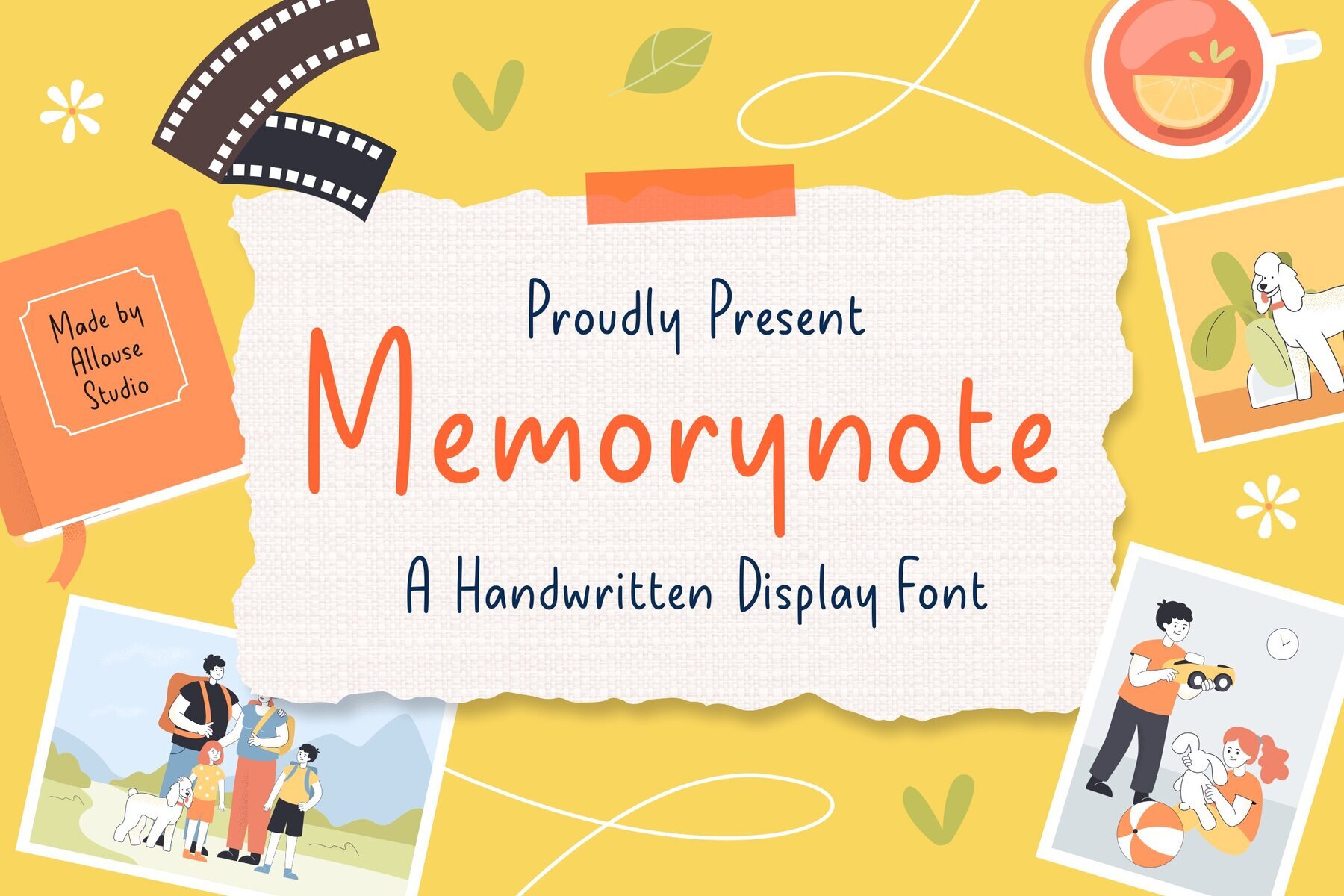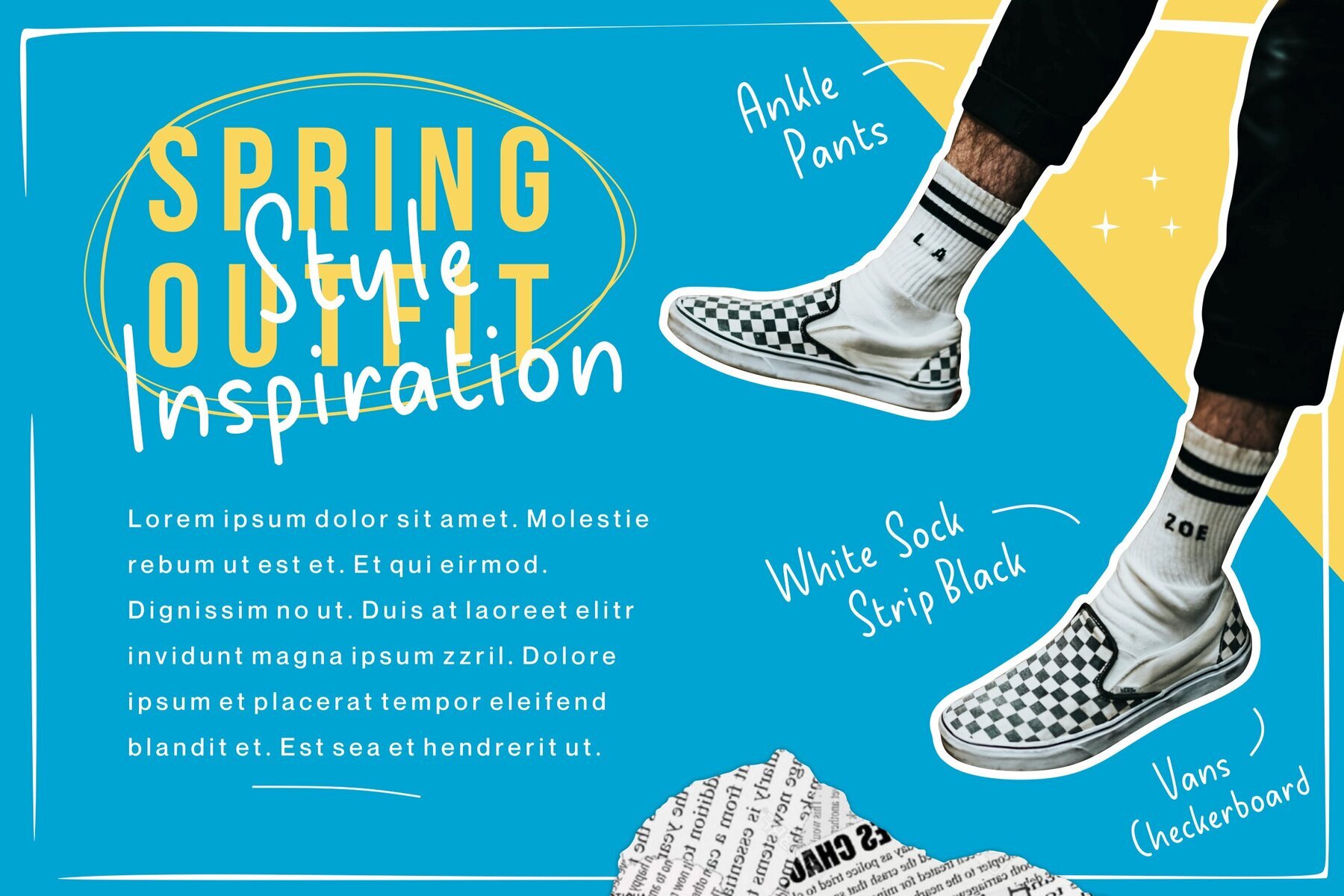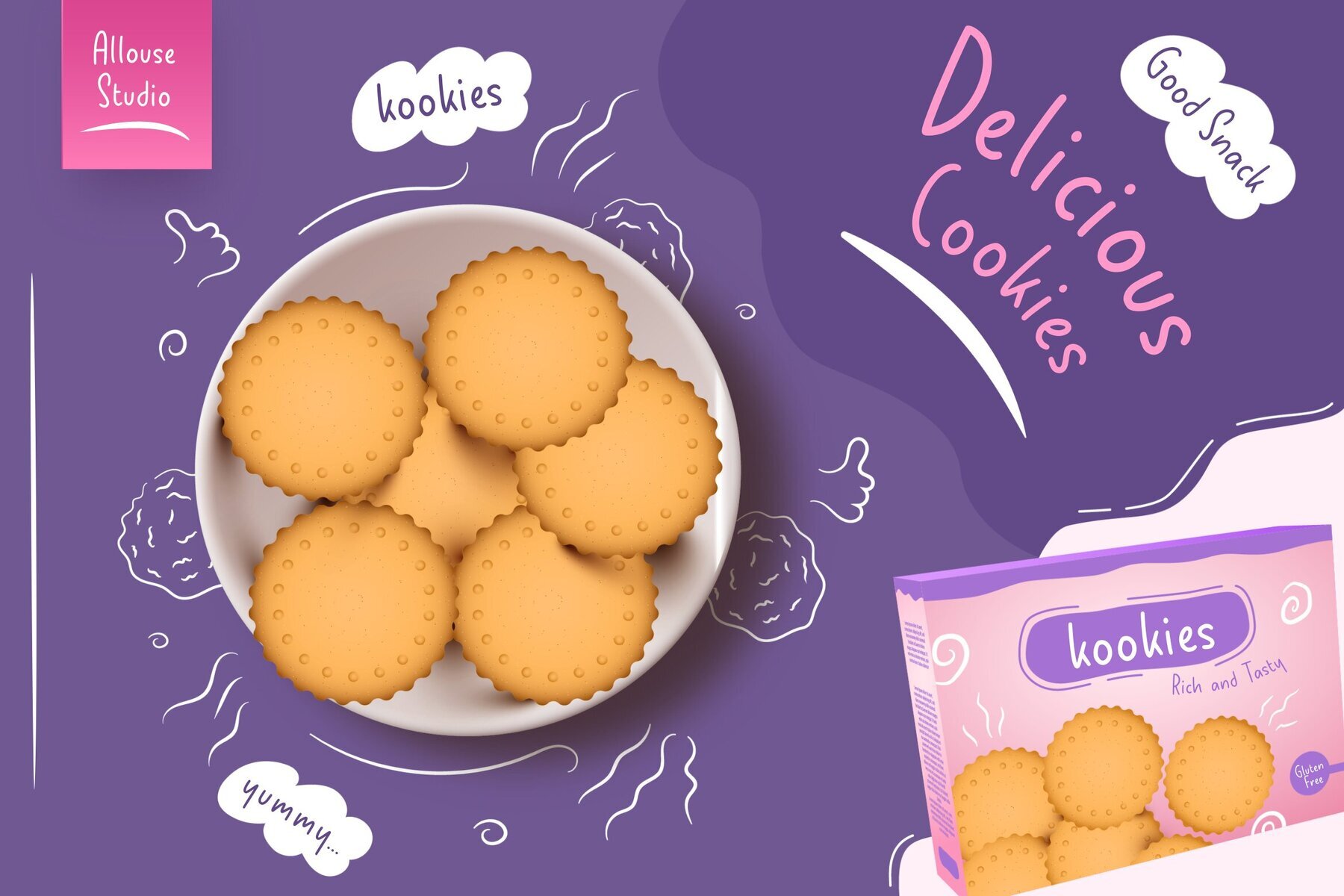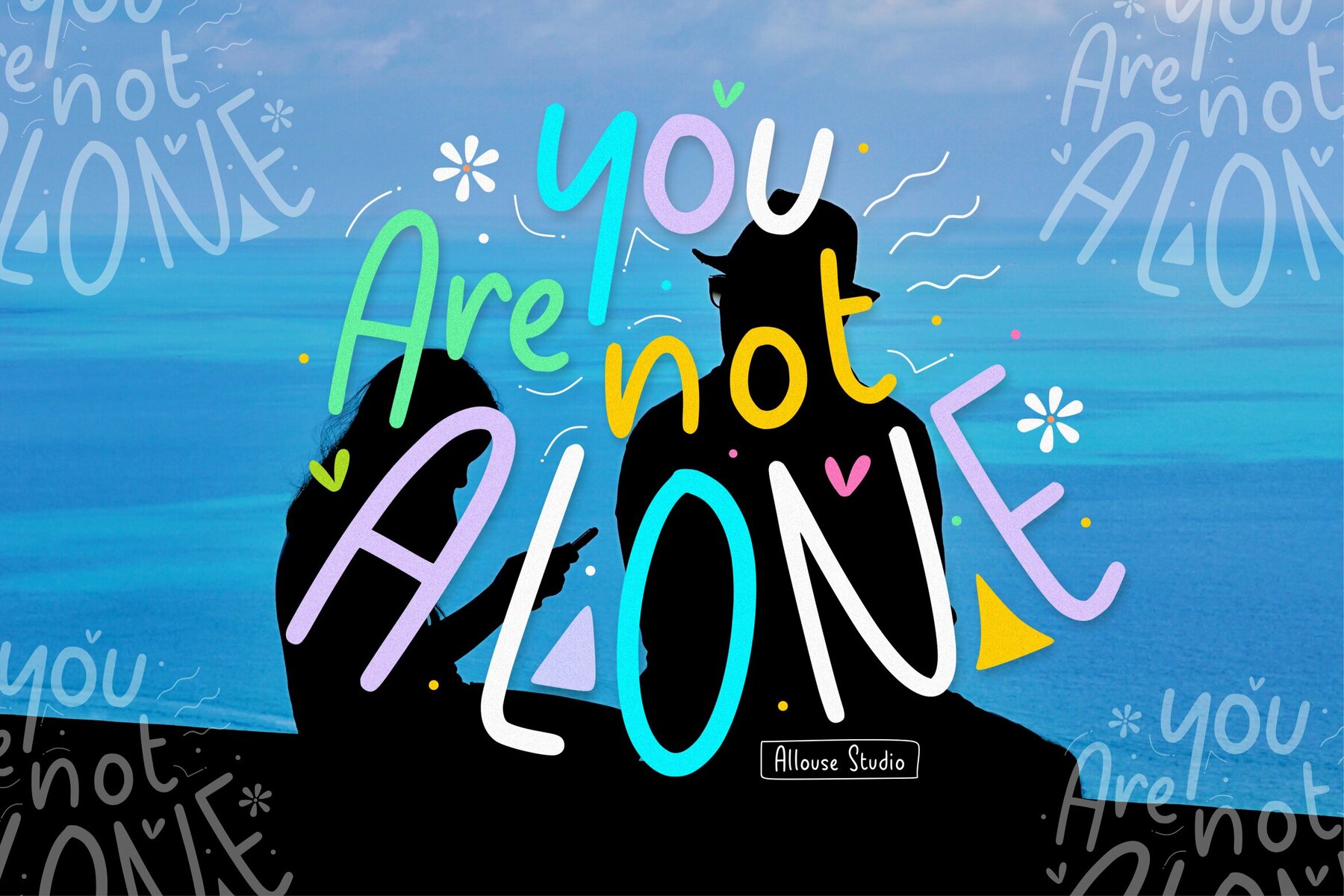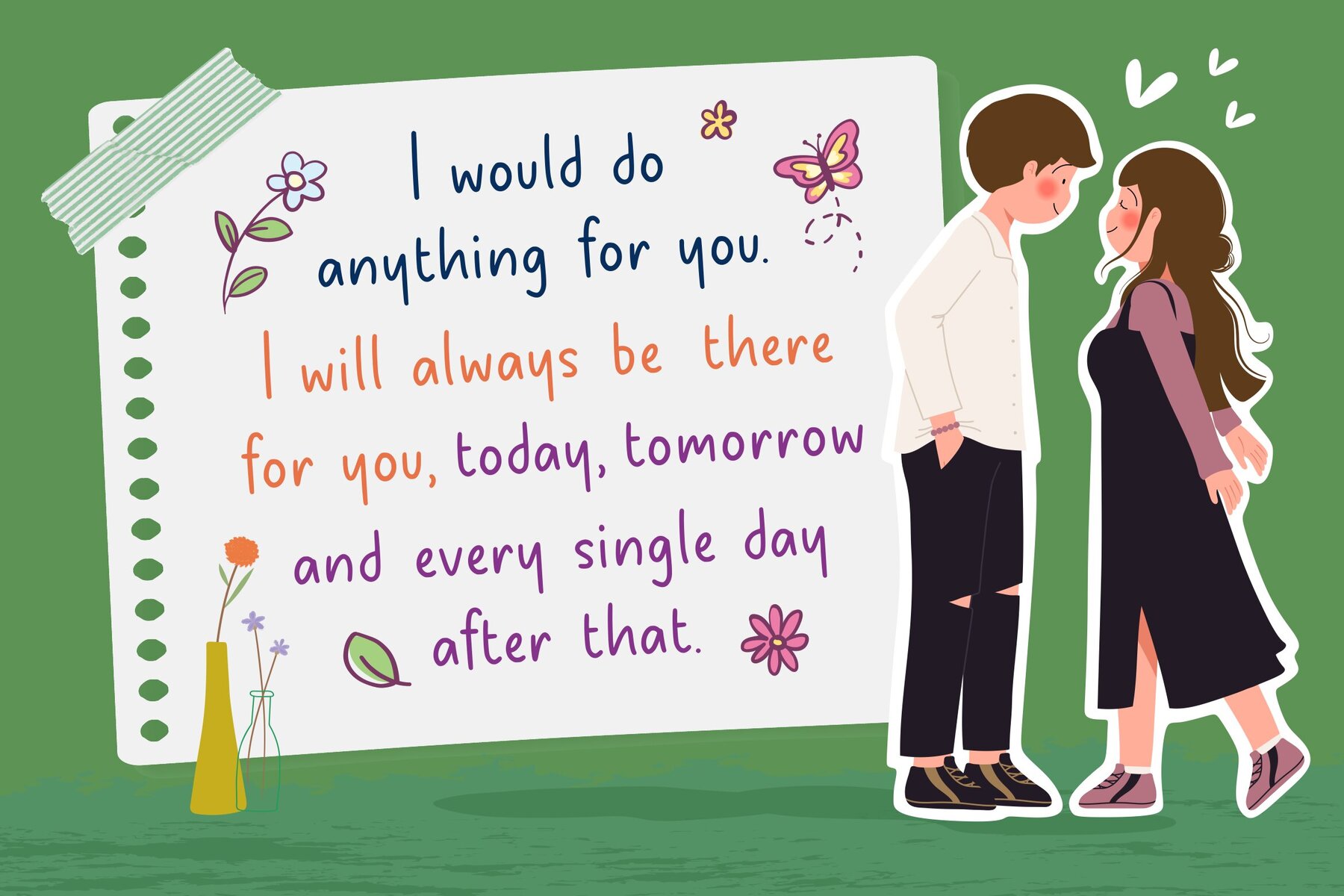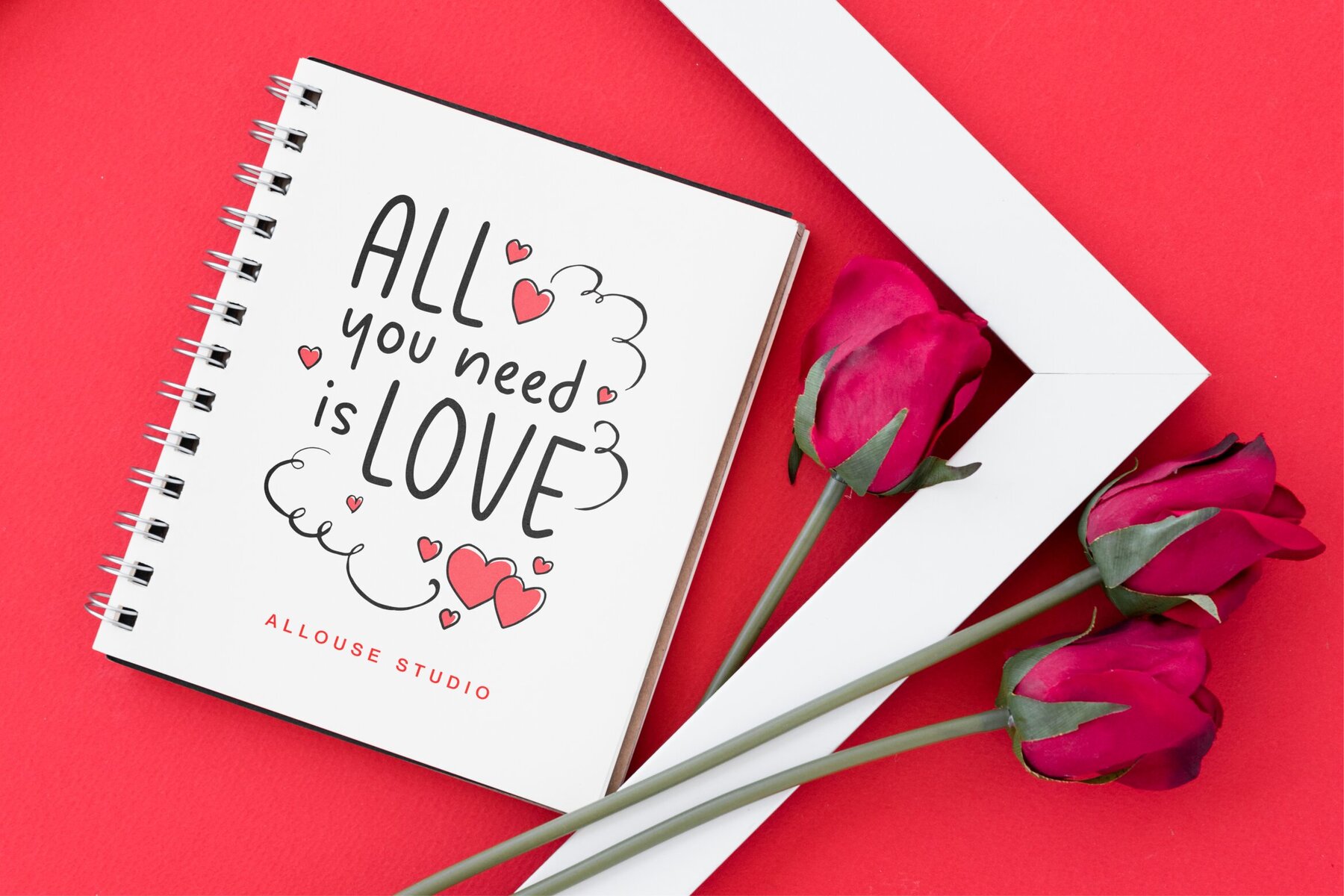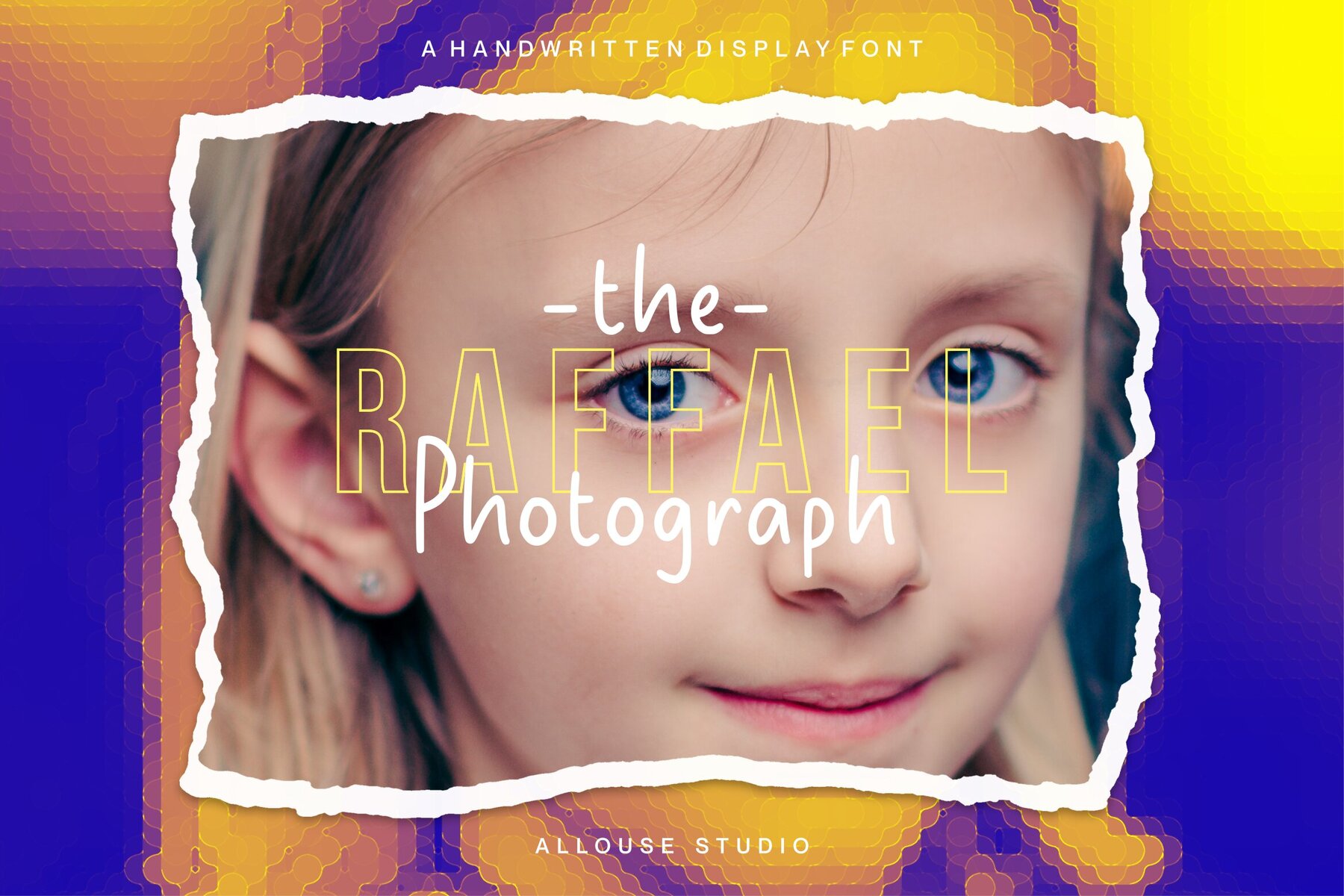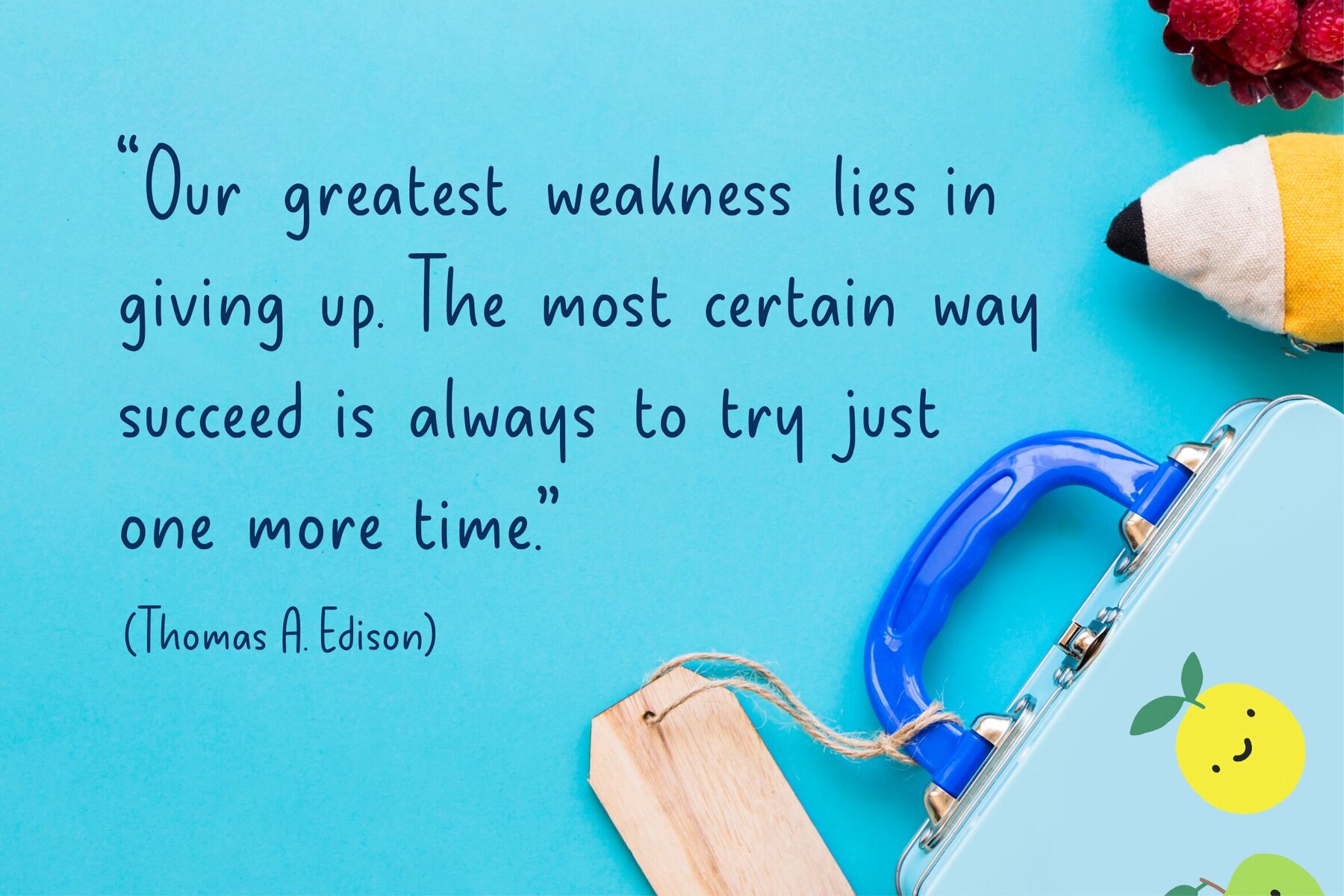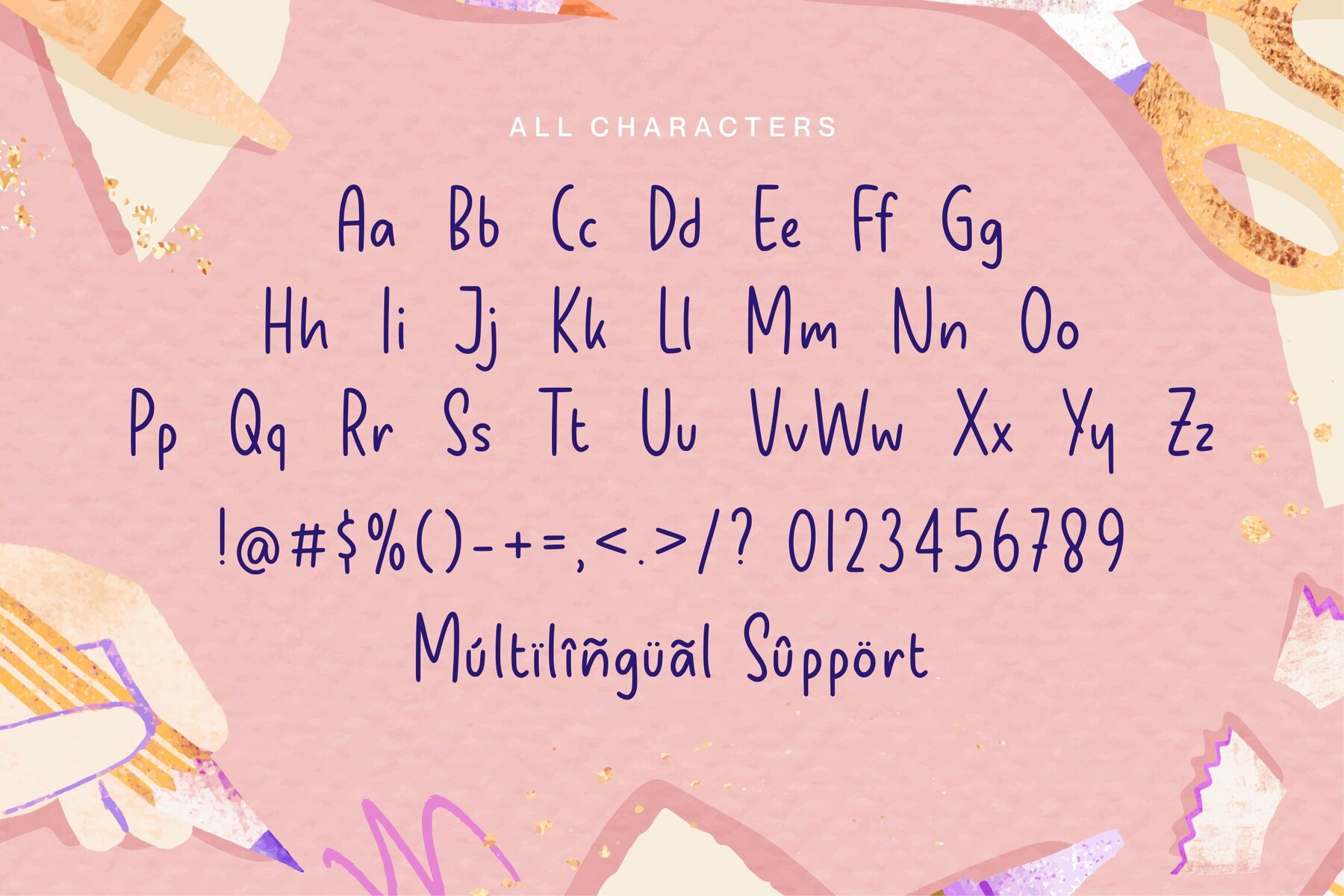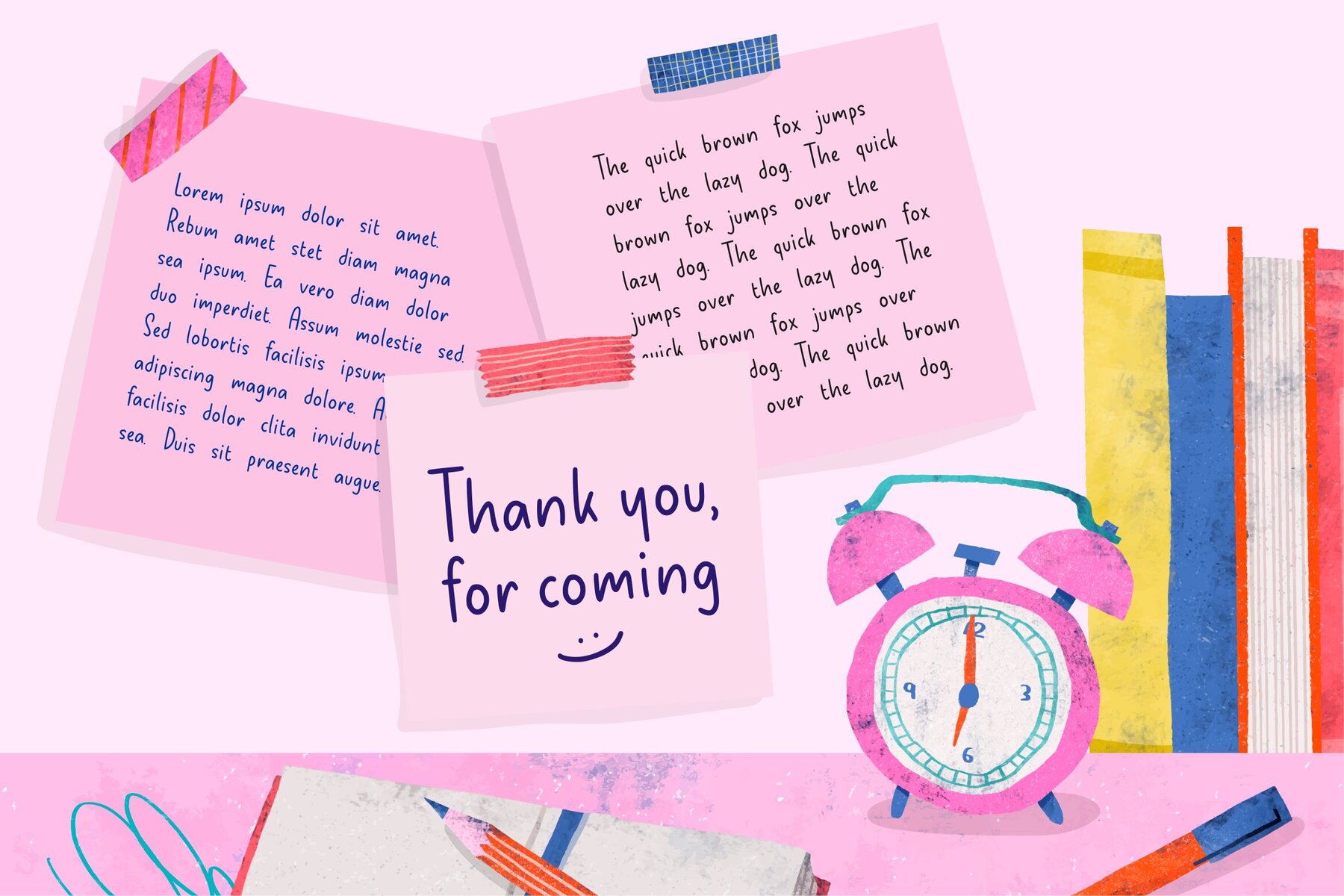
Memorynote: A Refined Script for Varied Creations
Memorynote offers a sophisticated script that is ideal for a range of projects, from product packaging and branding initiatives to editorial layouts and social media presence. Its elegant form also lends itself beautifully to wedding invitations or any occasion where words need to stand above the rest.
• Ideal for product packaging and branding.
• Perfect for magazine layouts and editorial work.
• Enhances social media posts with a unique flair.
• Well-suited for elegant wedding invitations and more.